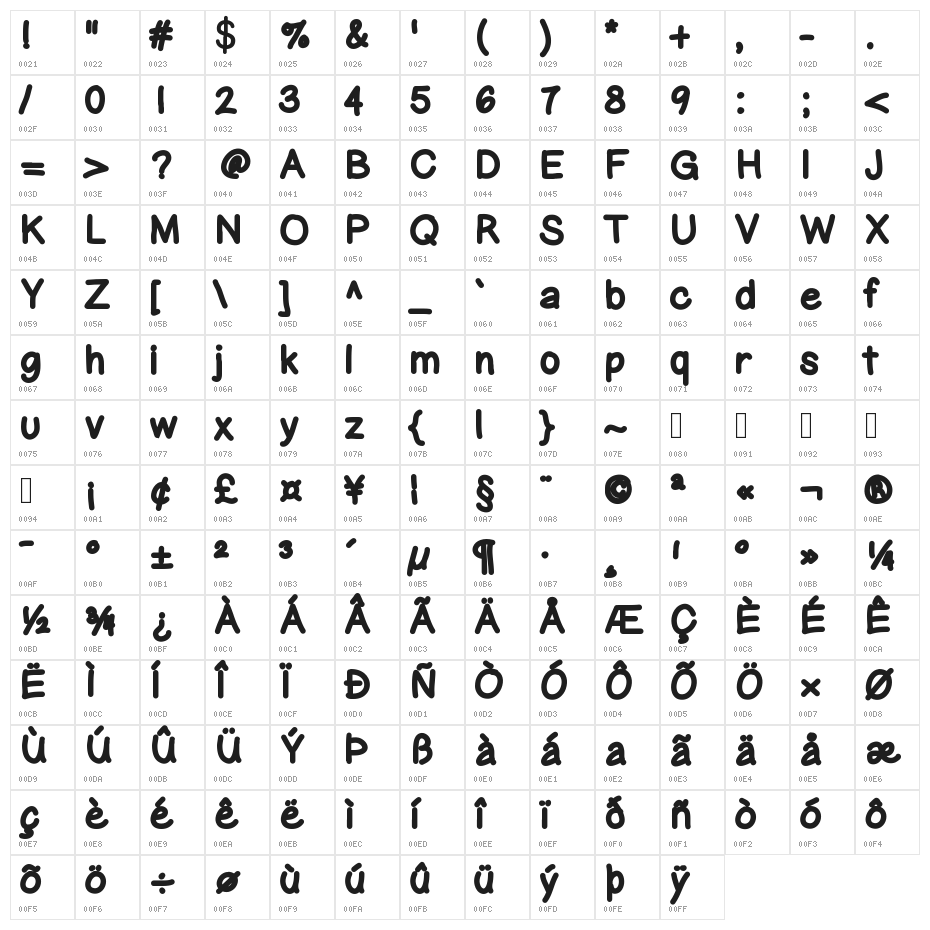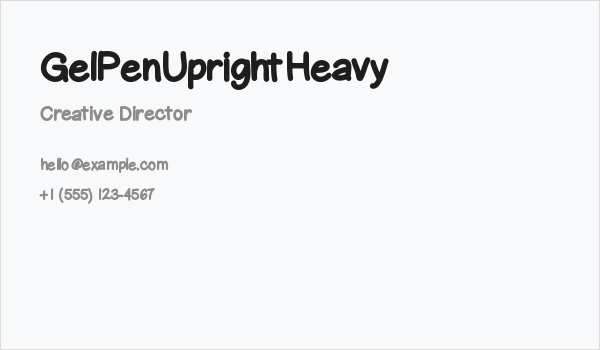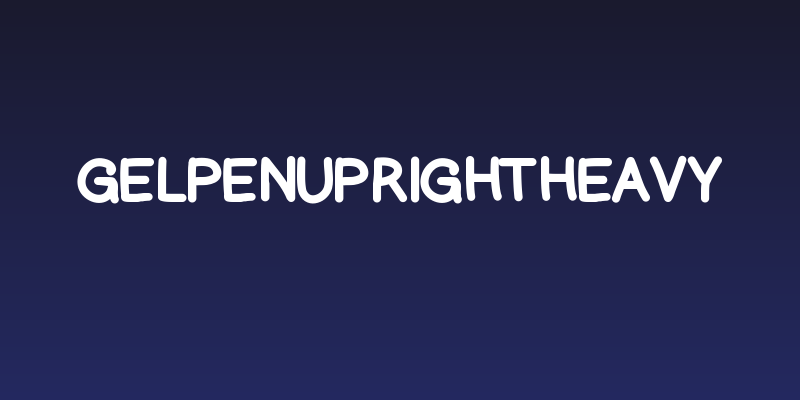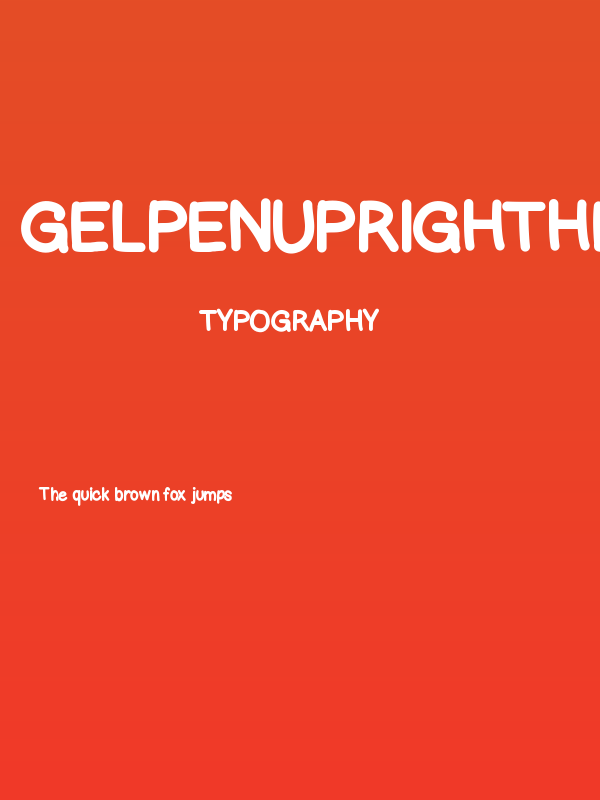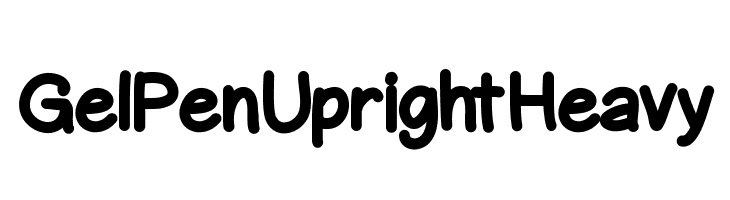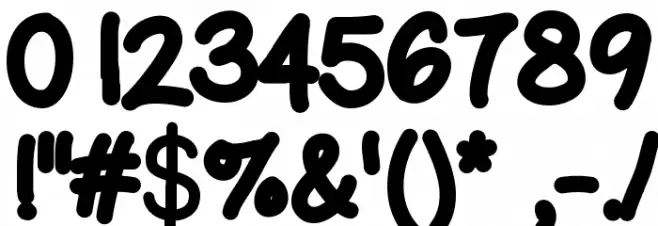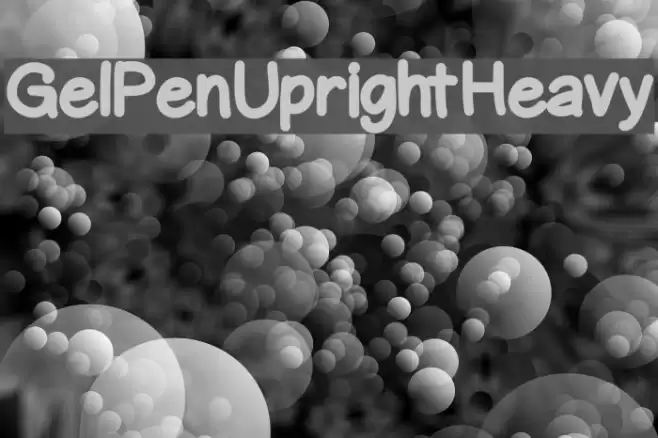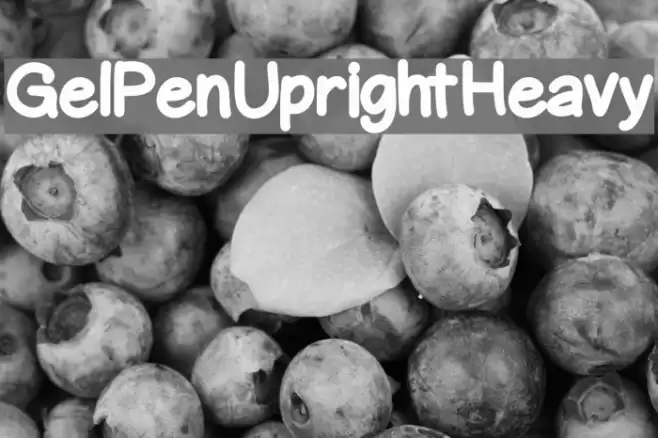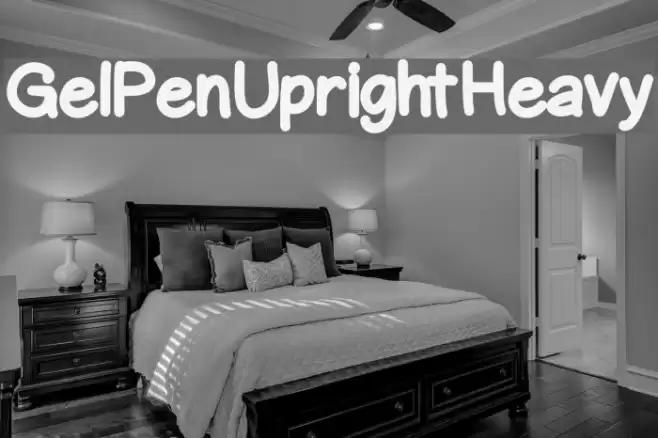
GelPenUprightHeavy Font
GelPenUprightHeavy Description
This font features a bold, rounded style with a playful and informal appearance. The characters are thick and heavy, giving them a strong presence on the page. The rounded edges and uniform stroke width contribute to a friendly and approachable look. The uppercase and lowercase letters maintain a consistent style, with a slight variation in size and shape that adds to the casual feel. The numbers and special characters are designed to match the overall aesthetic, ensuring a cohesive look across all text elements. This font is ideal for projects that require a fun and engaging tone.
| Overall Style | Playful |
| Proposed Projects | Ideal for children's books, playful branding, casual invitations, and social media graphics. |